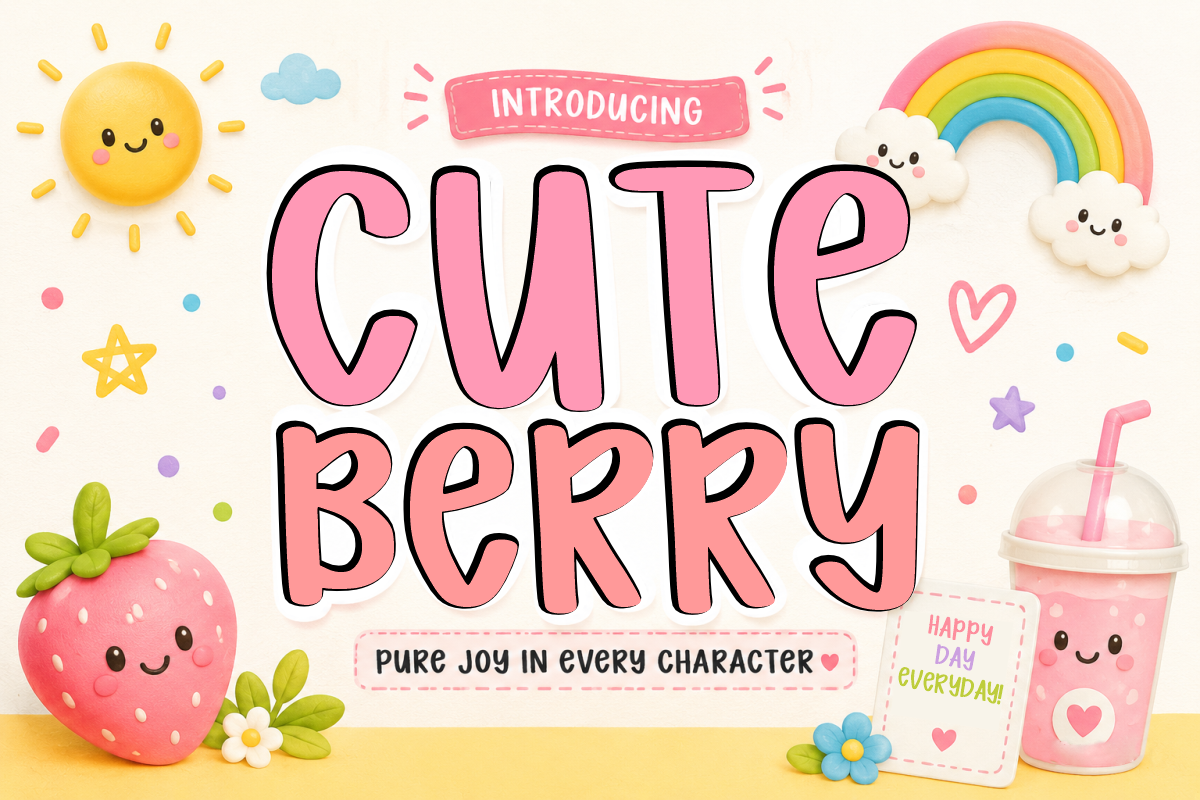
Cute Berry - Handwritten Kids Font
Cute Berry - Cute Handwritten Kids Font
Cute Berry is an adorable, bouncy handwritten font featuring tall, rounded letterforms filled with sweet playful charm and cheerful summer energy. Radiating pure joy and delightful innocence, this cute display font is perfect for kids' crafts, nursery prints, birthday cards, and sweet packaging designs. Every character is cleanly vectorized to guarantee high-resolution prints and smooth, effortless cutting on Cricut and Silhouette machines.